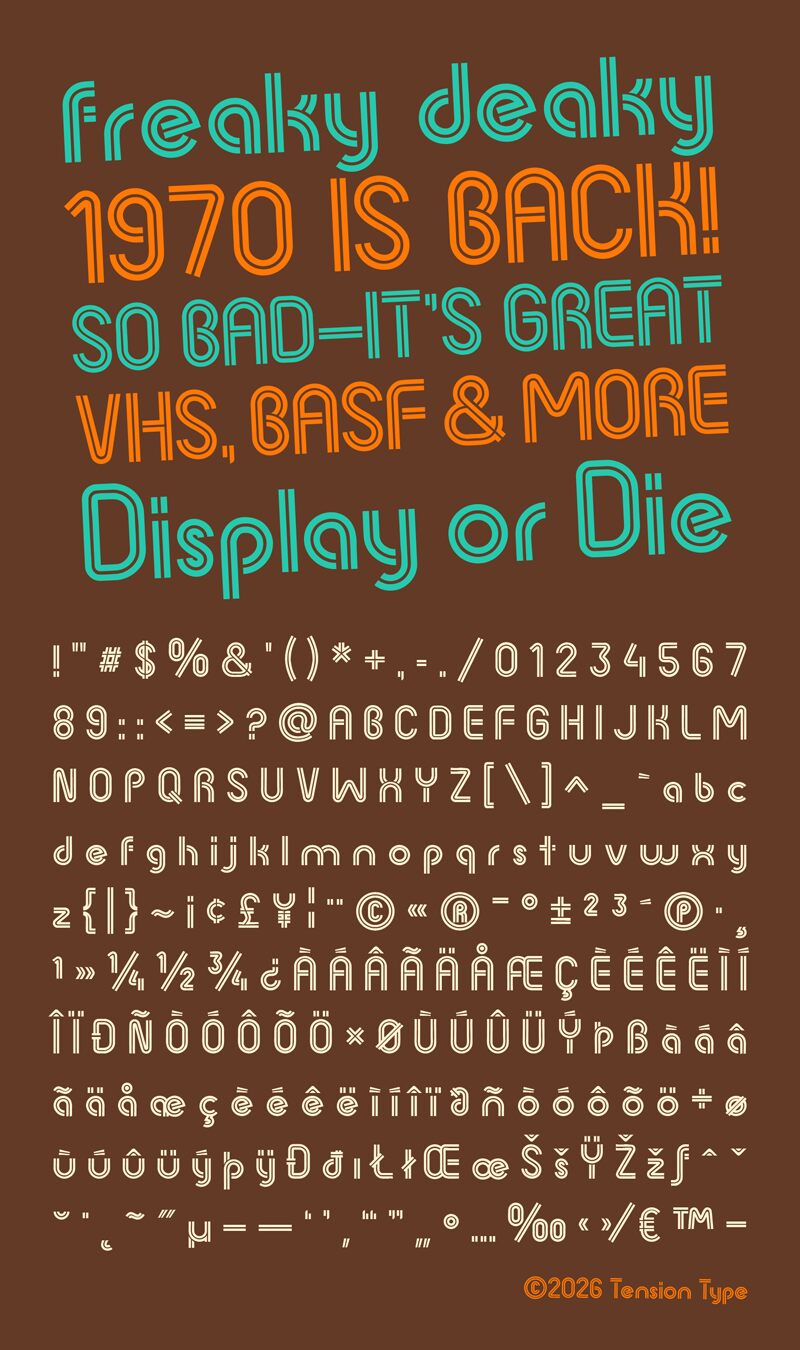
1970 Porno font by Tension Type is a free groovy font that draws inspiration from the 1970s spirit. It mimics period typography from magazines and combines the classic and the retro. While the font has a certain manly take on its aesthetic, it follows round and even fearless letterforms. It comes with a capital letter set and small capitals outlined to each with the same width. Last but not least, it can be compared to the works of Herbert Bayer and Edward Johnson.
1970 Porno supports extended Latin and various diacritical marks. Make use of it in website design, video games, applications, movie posters, album covers, and graphic identities. This typography has an eye-catching effect that can be incorporated within book design, editorial design, book covers, social media artwork, and merchandise design among others.
This design originated as a custom typeface for a logo. Initially, only a few letters were created, but I dedicated time to develop the complete alphabet. Although this font is best suited for display purposes, I expanded it into a full typeface. It embodies a distinctly retro style, making it an excellent choice for various creative projects.